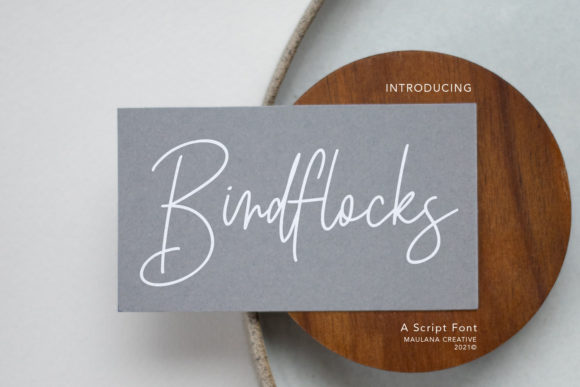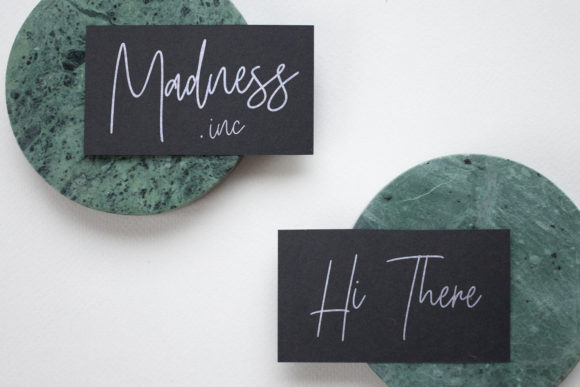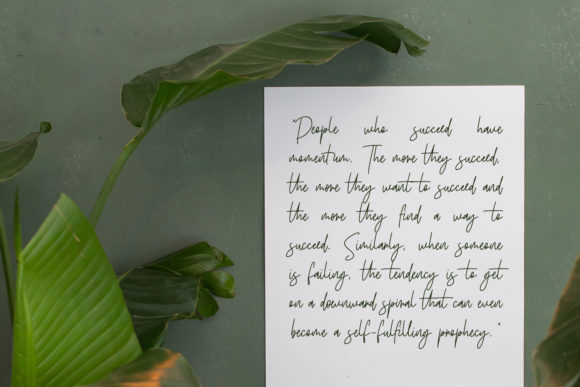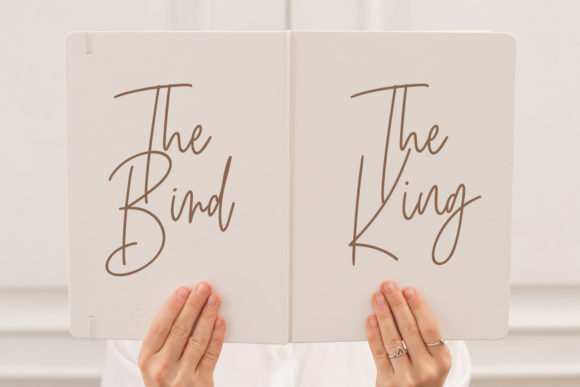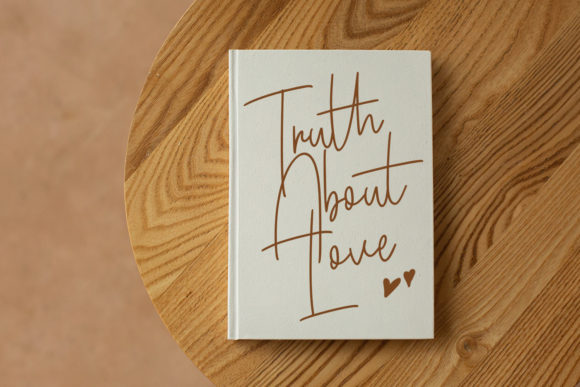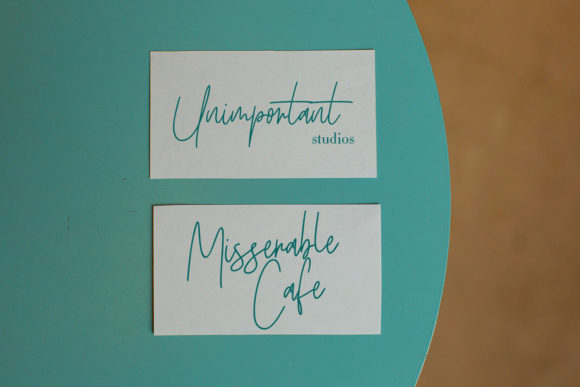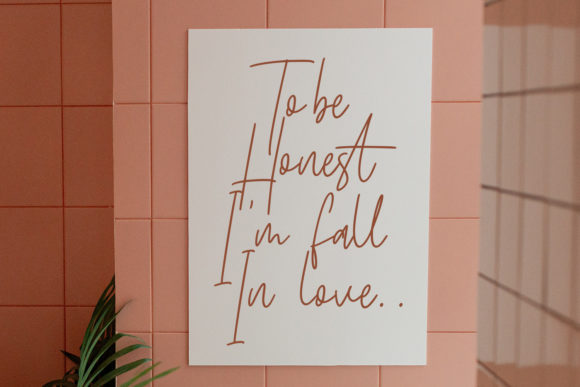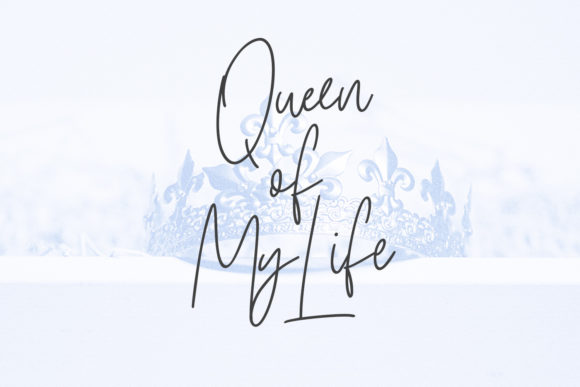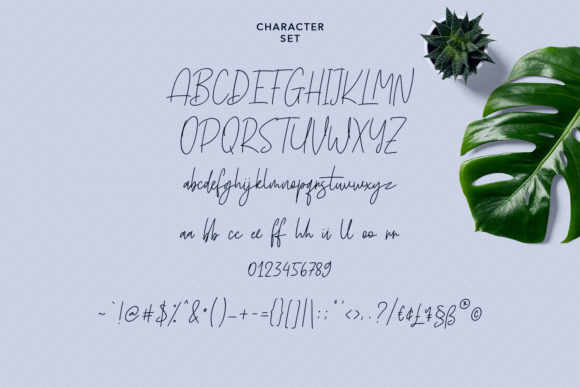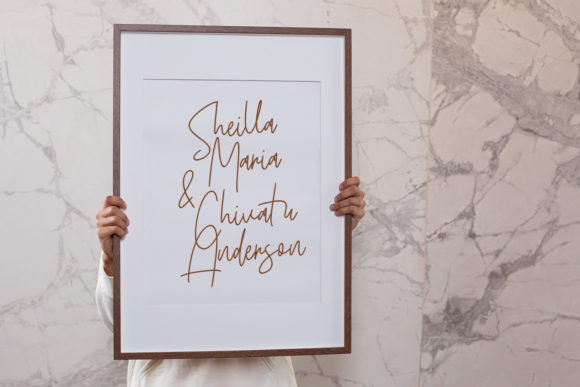
Birdflocks Script Font
About Birdflocks Script Font
Introducing “Birdflocks Script,” a fashionable and thin lettered script font designed to bring elegance and sophistication to your designs. With its exquisite style, this font is perfect for creating stunning wedding invitations, beautiful stationary art, eye-catching social media posts, and a wide range of other projects.
Birdflocks Script features thin, delicate letterforms that exude a sense of refinement and grace. The smooth and flowing curves of the letters create a harmonious and elegant look, making it an ideal choice for sophisticated and romantic designs.
The font’s thin lettering adds a touch of delicacy, allowing it to blend seamlessly into various design elements. Whether you’re designing wedding invitations, RSVP cards, or save-the-date cards, Birdflocks Script will add a touch of luxury and charm to your stationery.
With its stylish and sophisticated appearance, Birdflocks Script is also well-suited for creating beautiful stationary art. Whether you’re designing art prints, wall decor, or personalized stationery, this font will bring an element of elegance and refinement to your creations.
In addition to physical designs, Birdflocks Script can be used to create eye-catching social media posts. Its fashionable and thin lettering stands out on digital platforms and adds a touch of sophistication to your visual content.
Beyond weddings, stationary art, and social media, Birdflocks Script can be used for a variety of projects that require an exquisite and stylish touch. Create elegant logos, branding materials, packaging designs, and more with this versatile font.
In summary, Birdflocks Script is a fashionable and thin lettered script font that exudes elegance and sophistication. It is perfect for creating stunning wedding invitations, beautiful stationary art, eye-catching social media posts, and a wide range of other design projects. Fall in love with its exquisite style and use it to bring a touch of luxury to your designs.